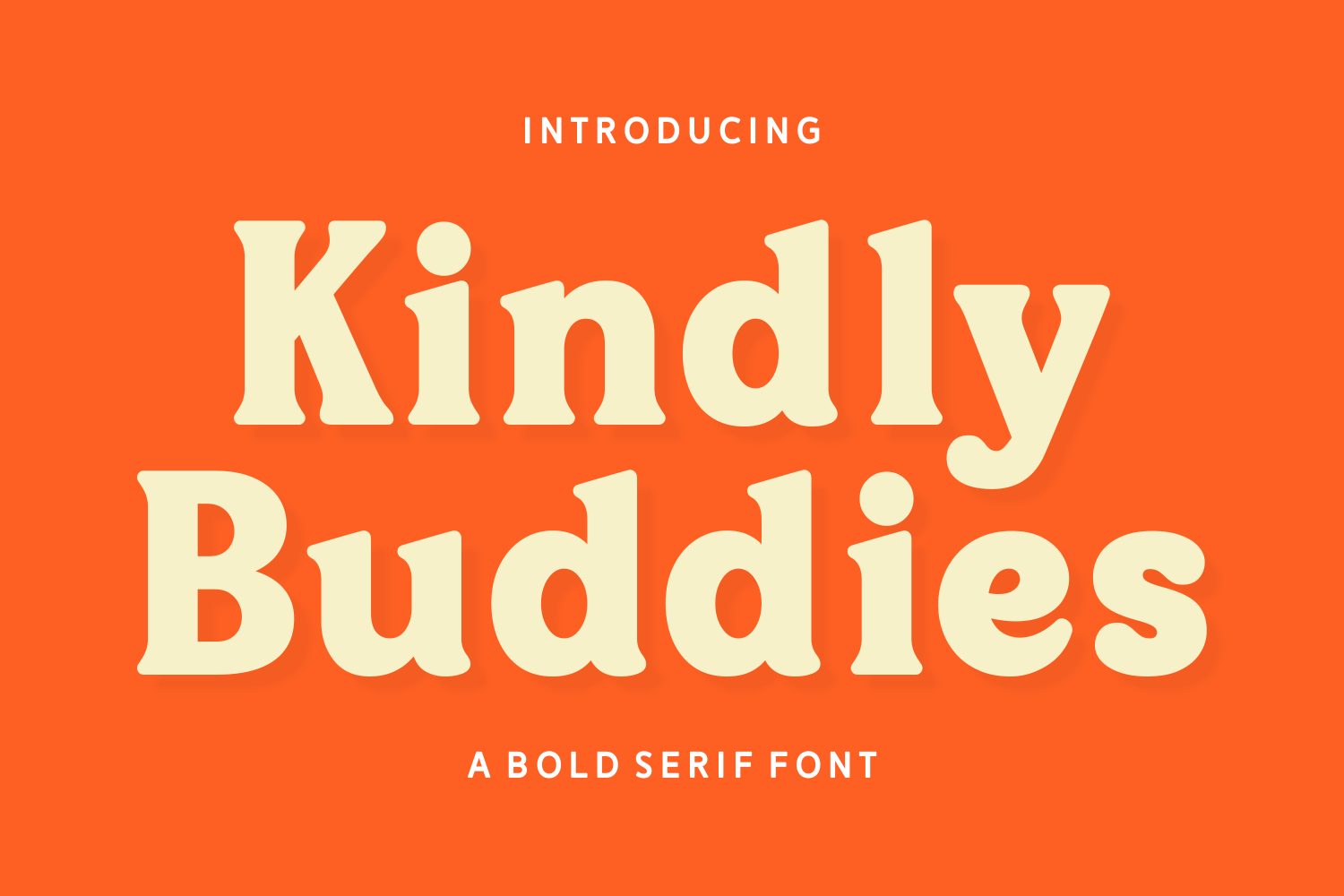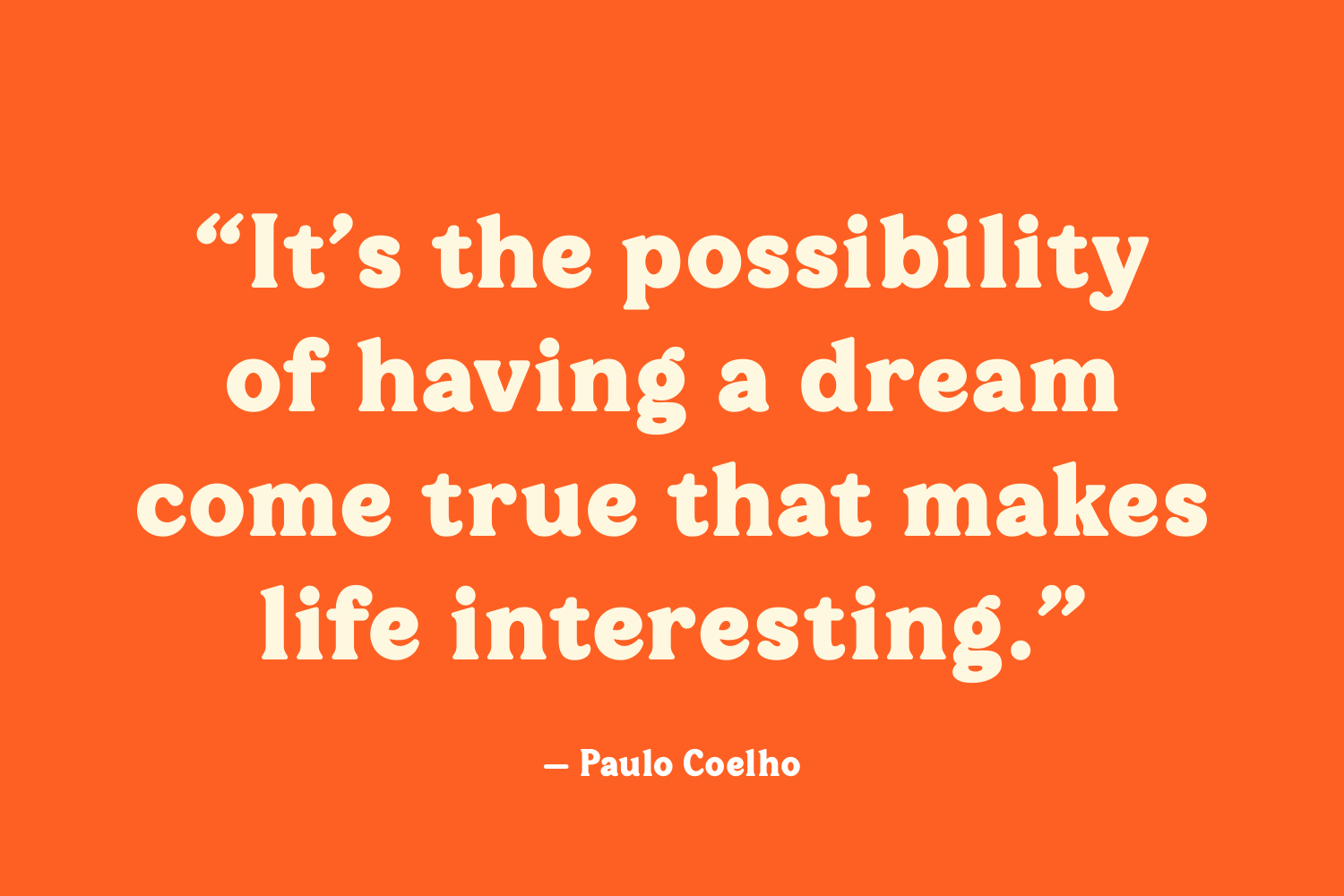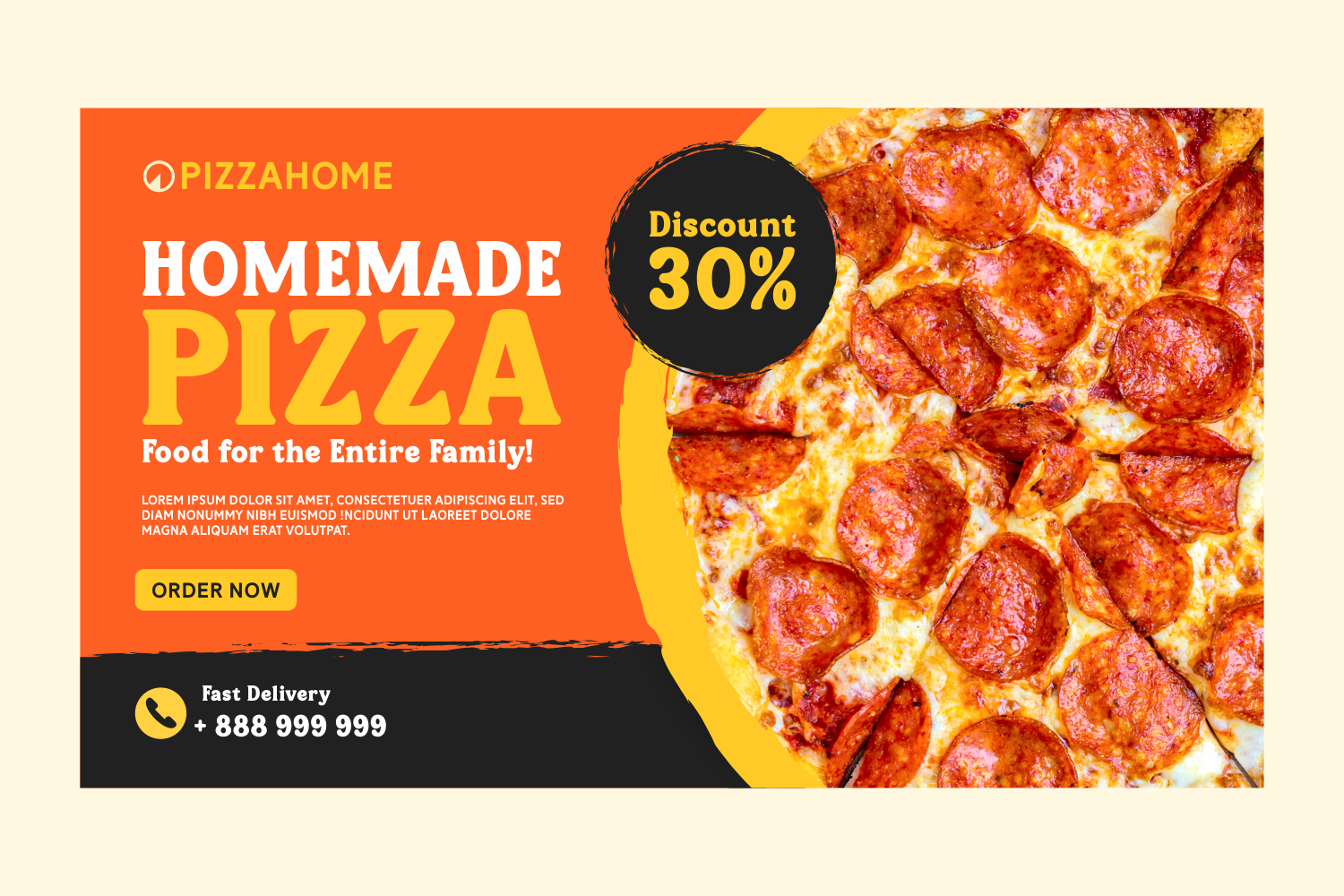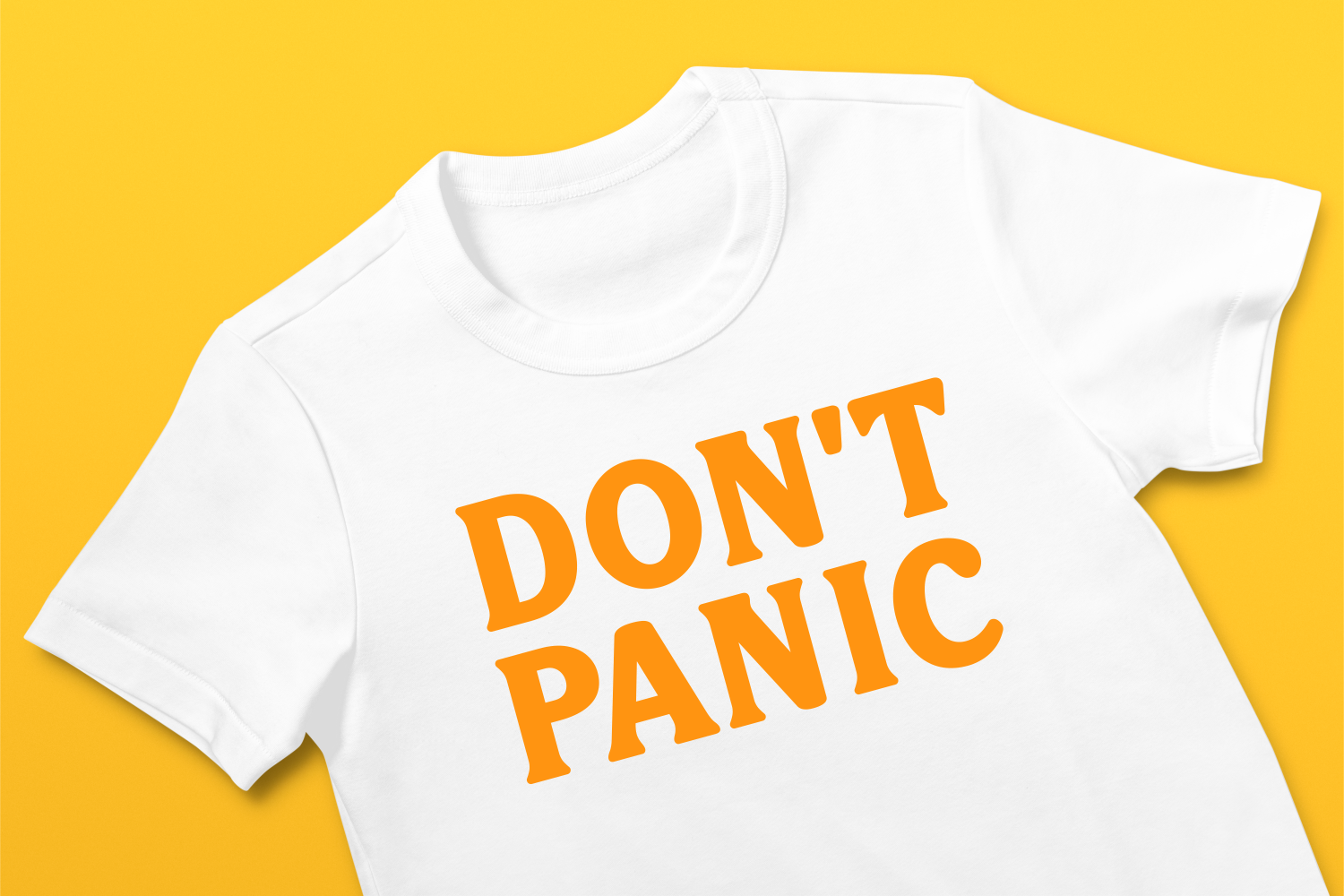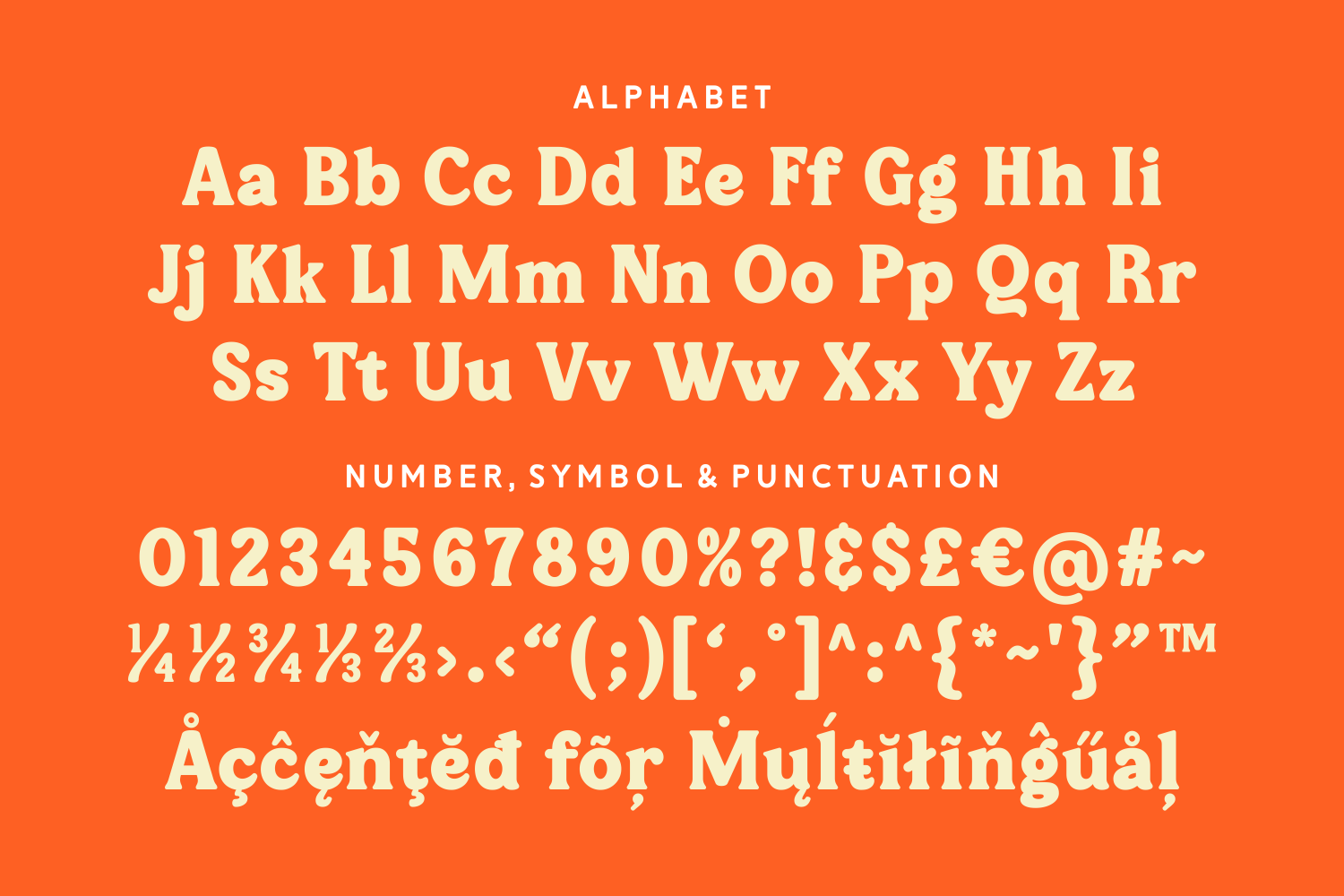
Kindly Buddies is a cheerful and chunky bold serif font that radiates friendliness and fun. It offers full multilingual support and a wide range of punctuation, making it as functional as it is expressive. Whether you're creating an inviting ad or a heartwarming t-shirt design, Kindly Buddies brings charm and confidence in equal measure.